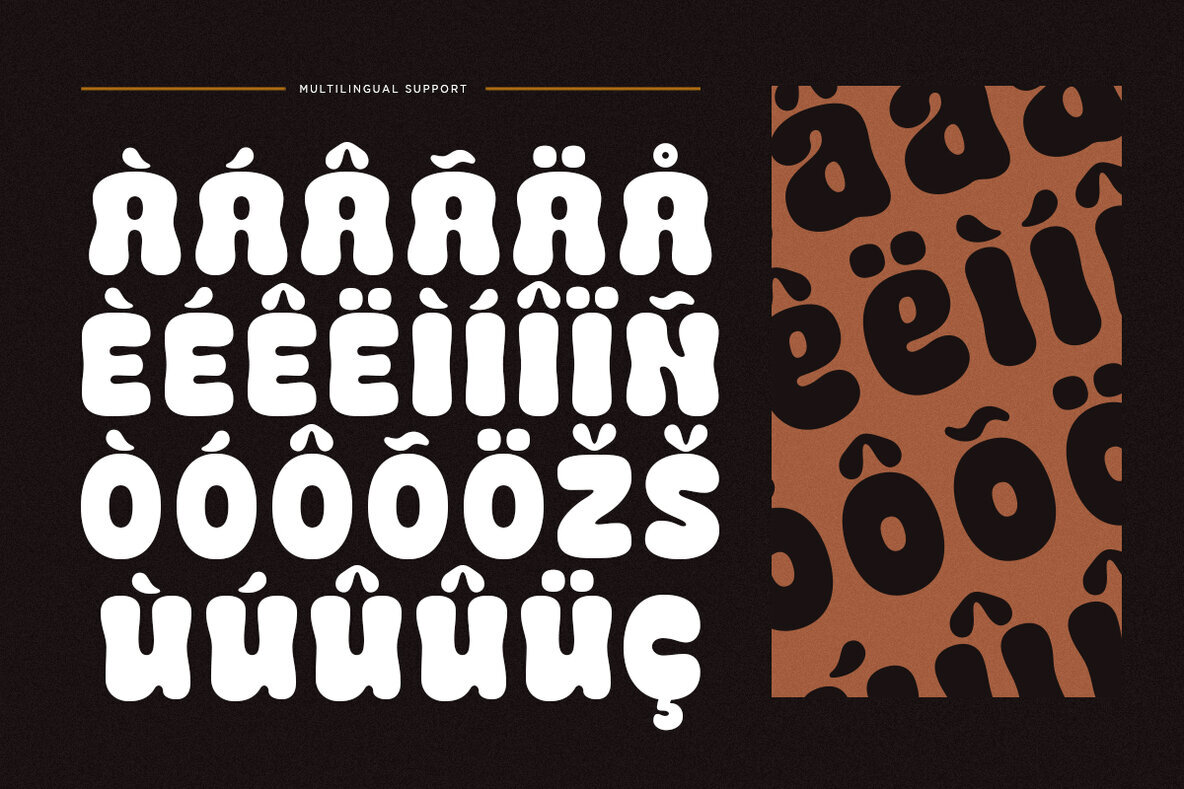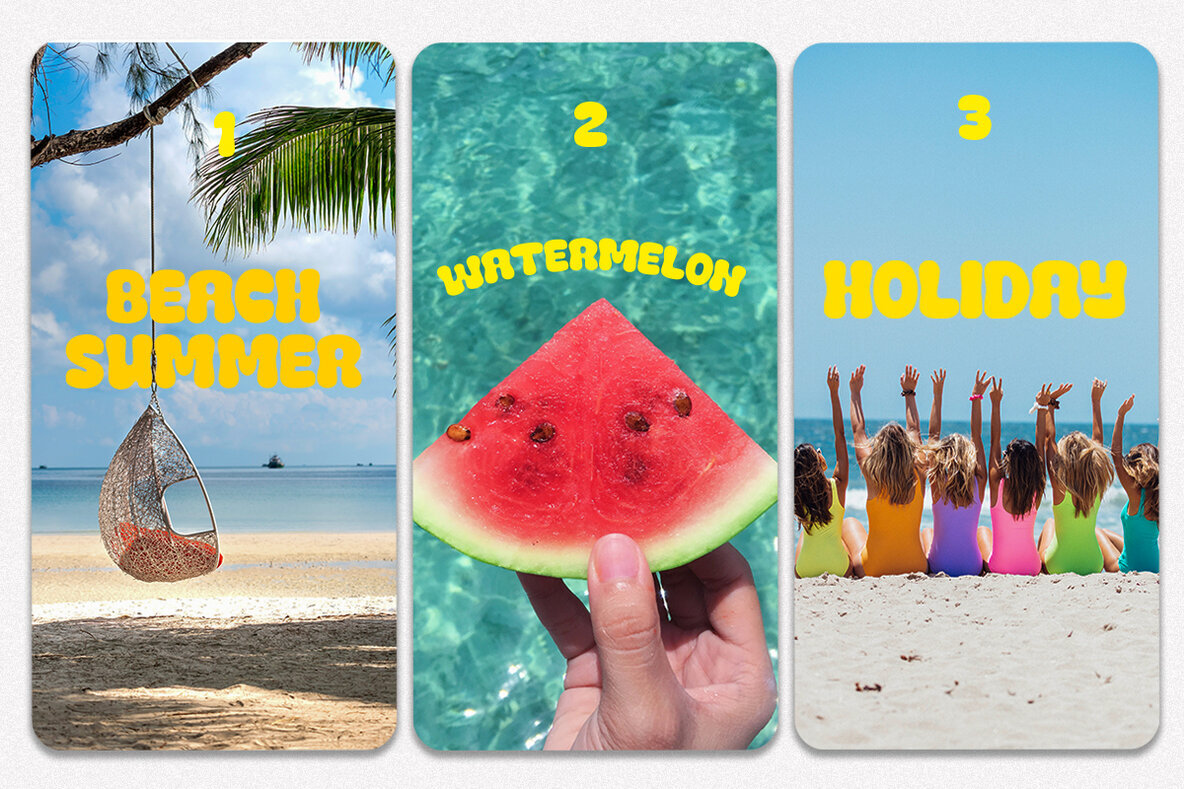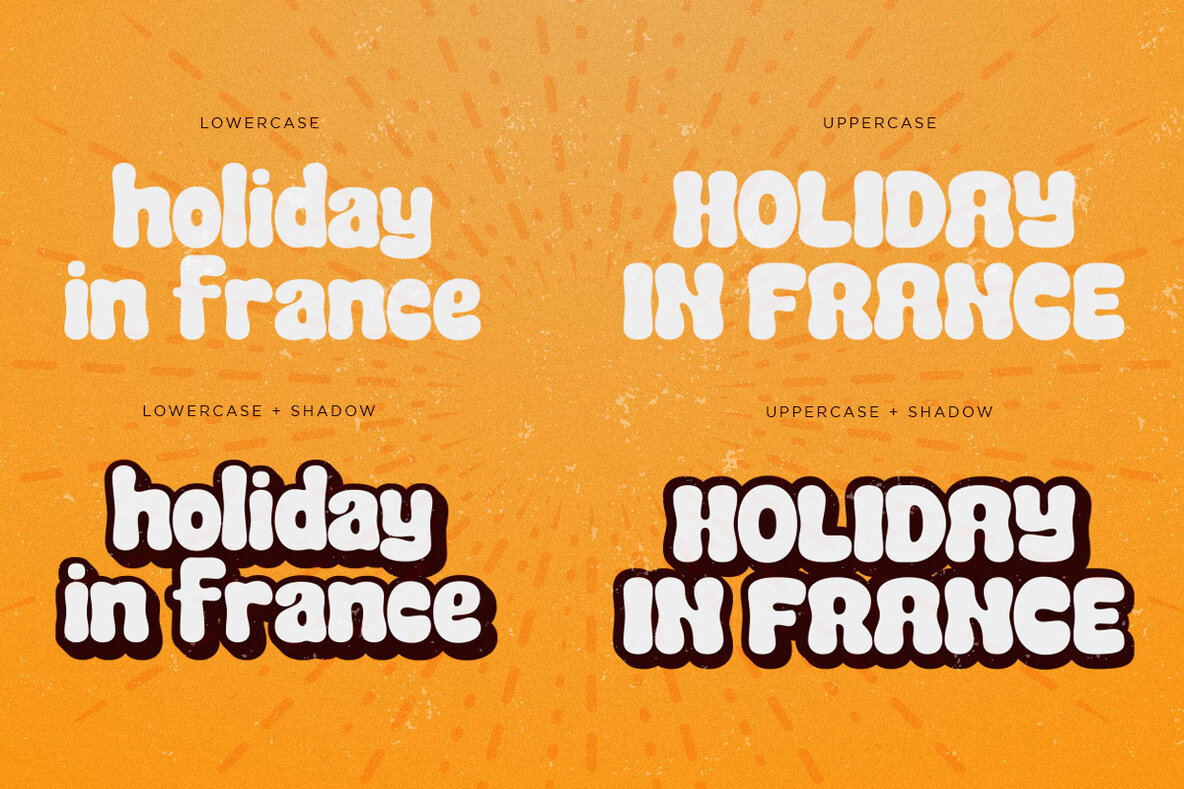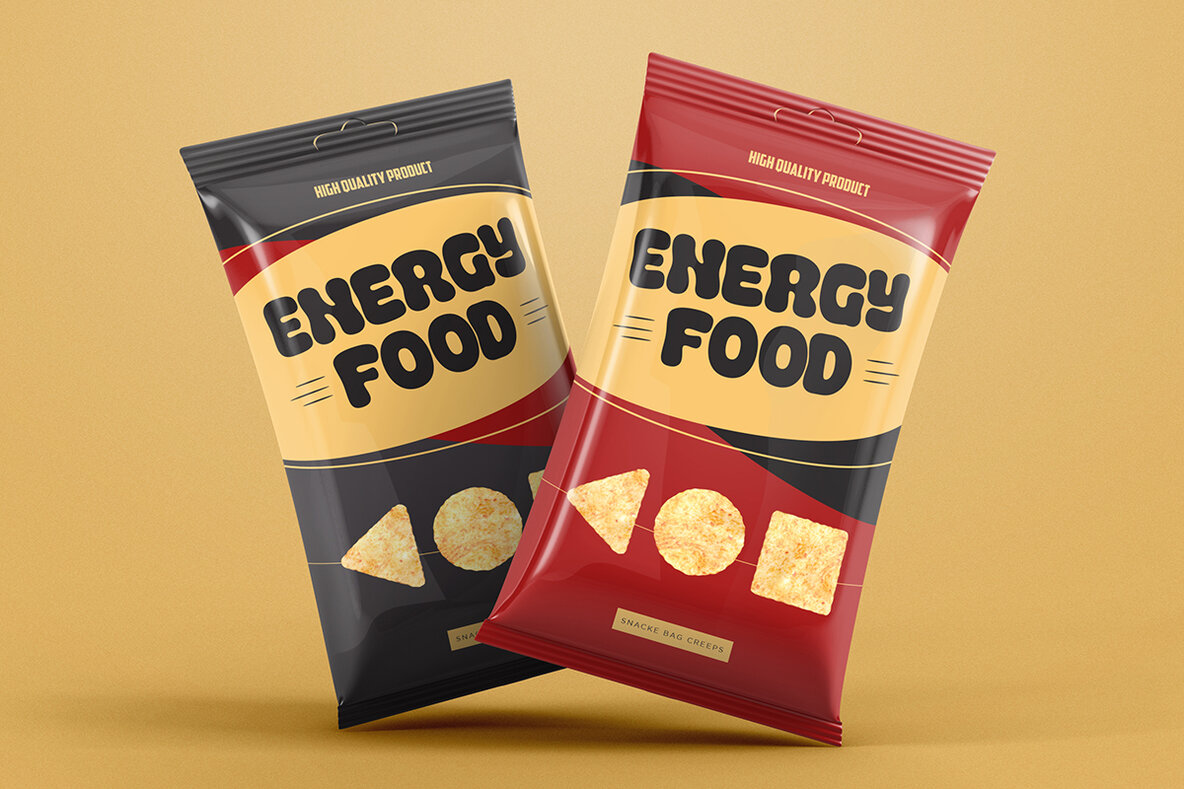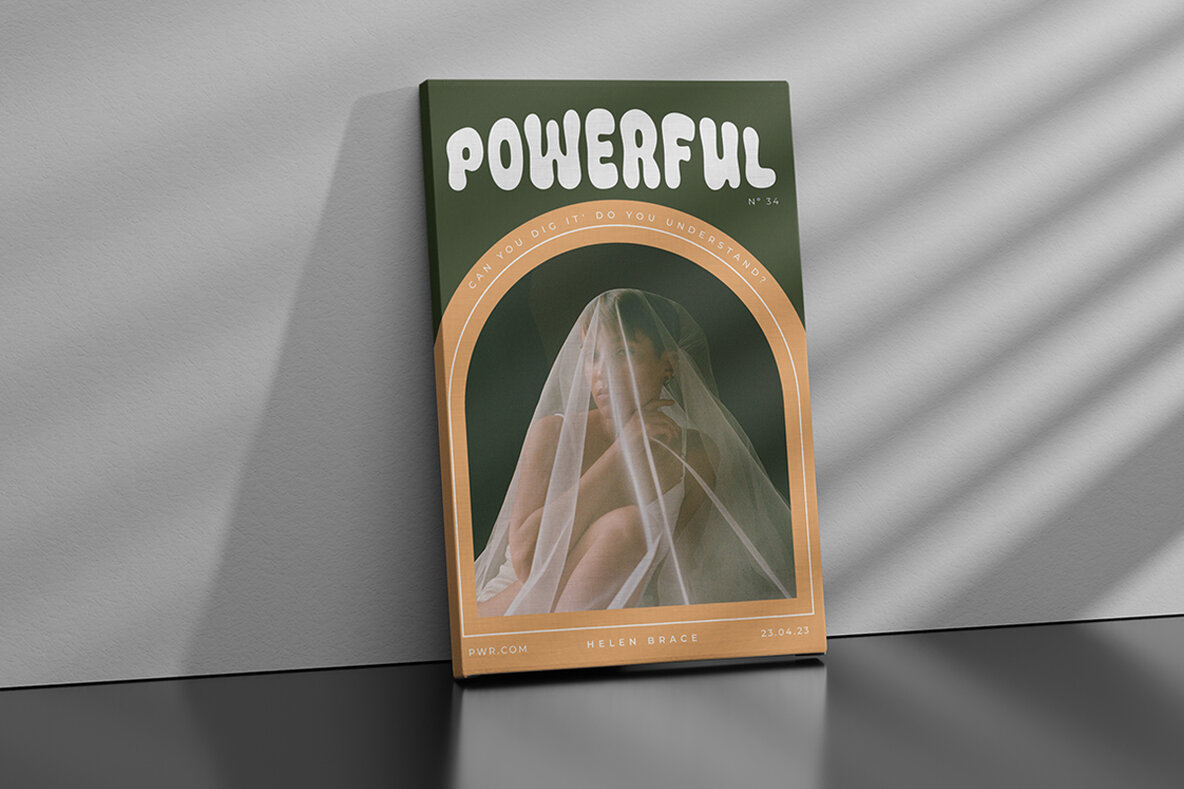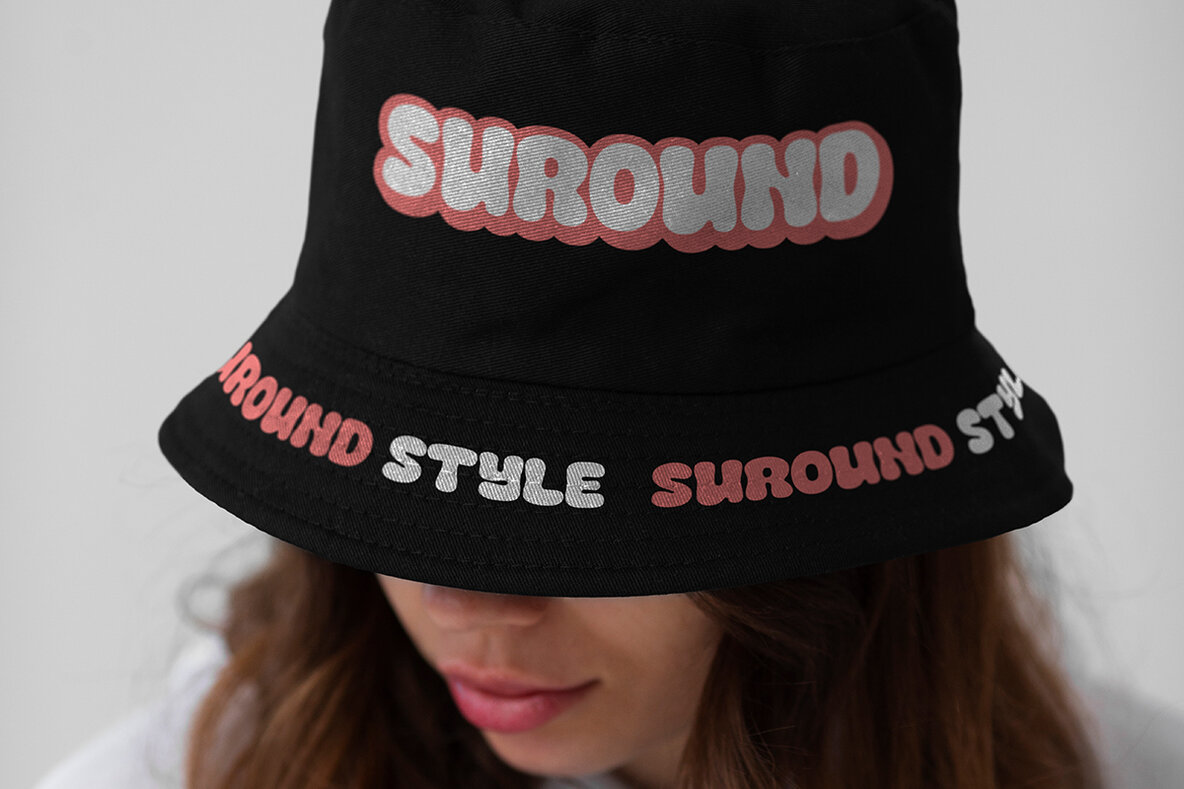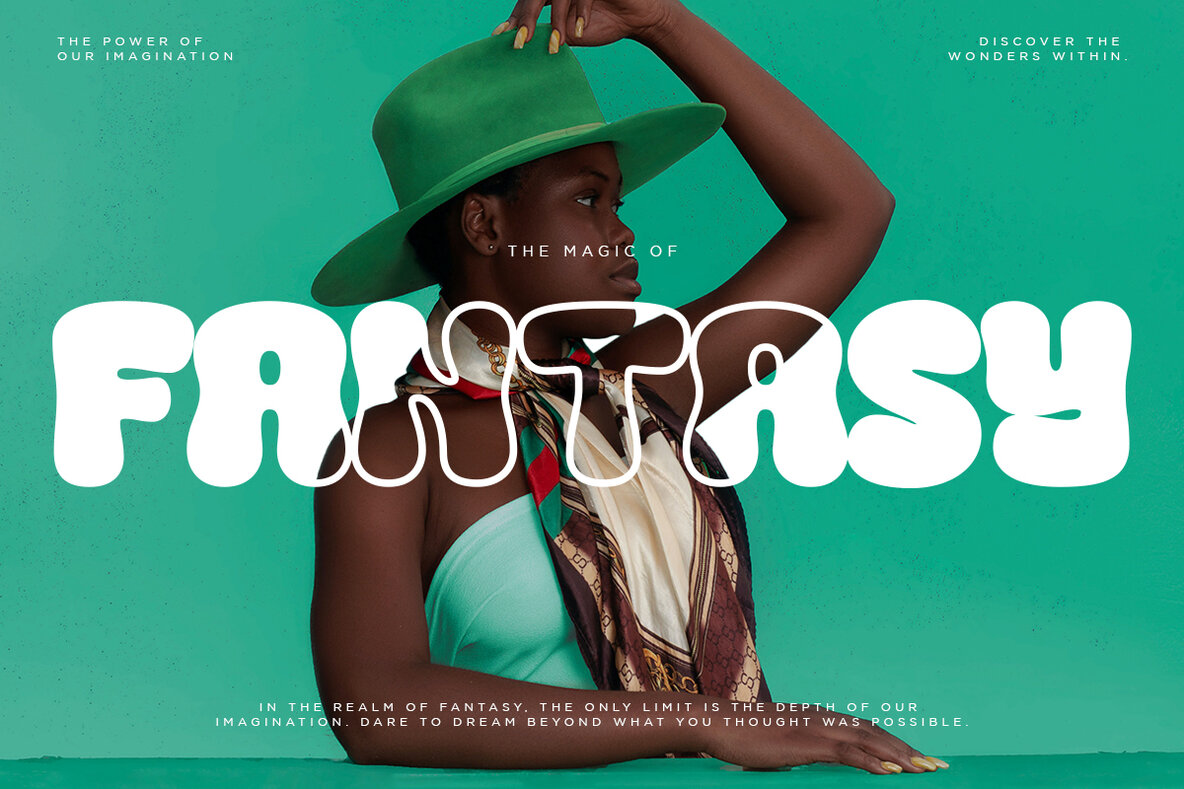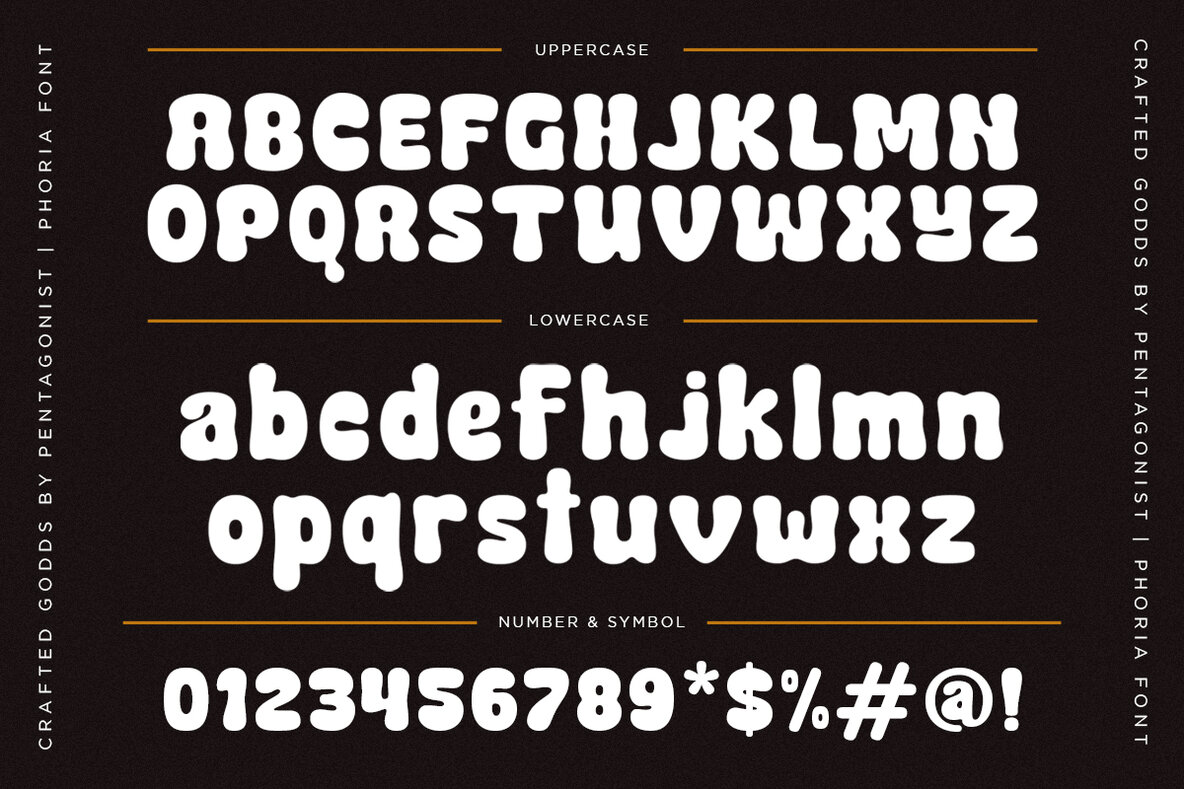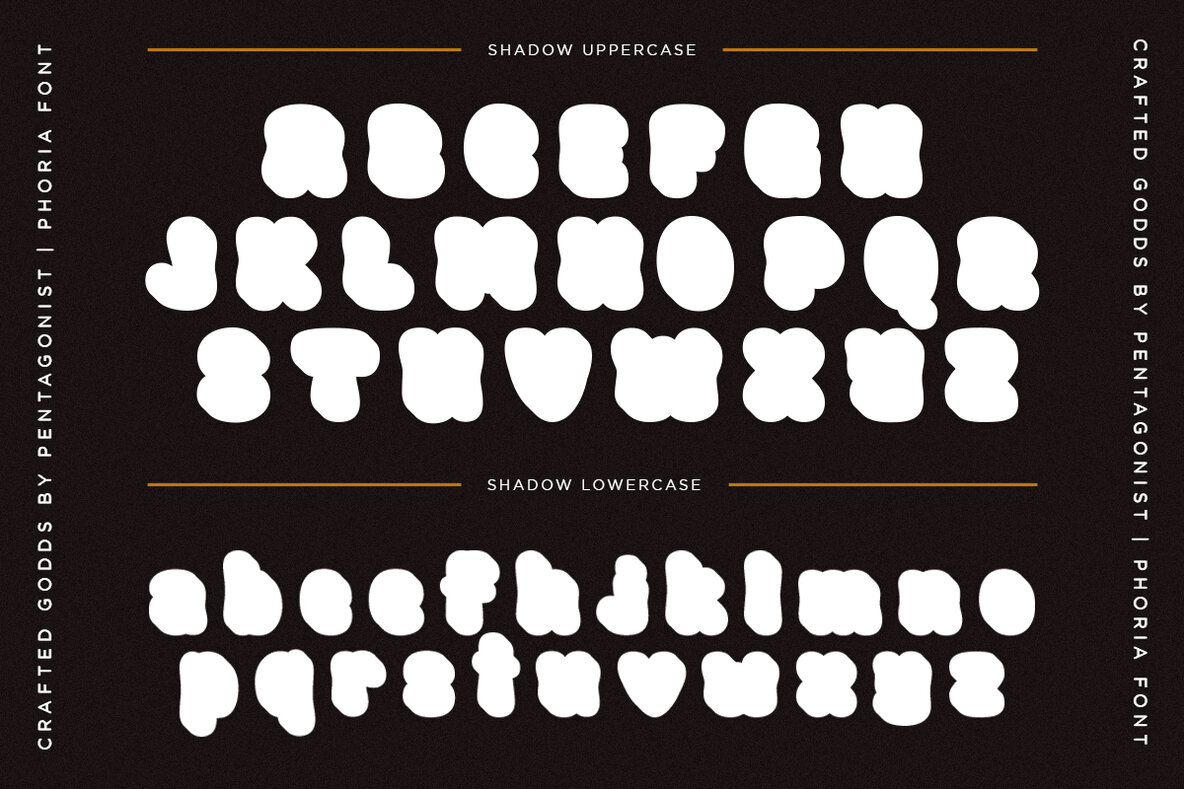
Phoria Font
Phoria Regular
Phoria by Pentagonistudio is a captivating vintage display character font inspired by the stylish and groovy aesthetics of bygone eras. This typeface offers a unique blend of retro charm and modern versatility, making it perfect for projects that need a distinct and nostalgic flair. No special software is required; Phoria can be used in any program or web application that supports standard fonts. Ready to add some vintage charm to your designs? Follow our shop for future updates, including additional glyphs and language support. If you have specific language or feature requests, please send us a message. Have a great day!Phoria: Vintage-Inspired Display Typeface